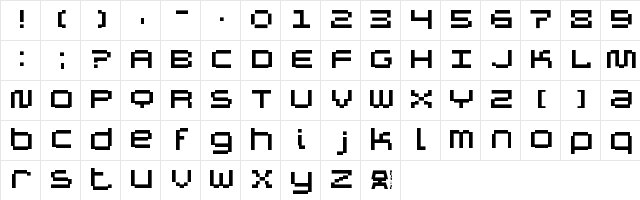
Autriche ALT Regular
Design Context for Autriche ALT Typeface
Autriche ALT takes a measured approach to typography — its balanced proportions and neutral character make it a reliable workhorse for both digital and print work.